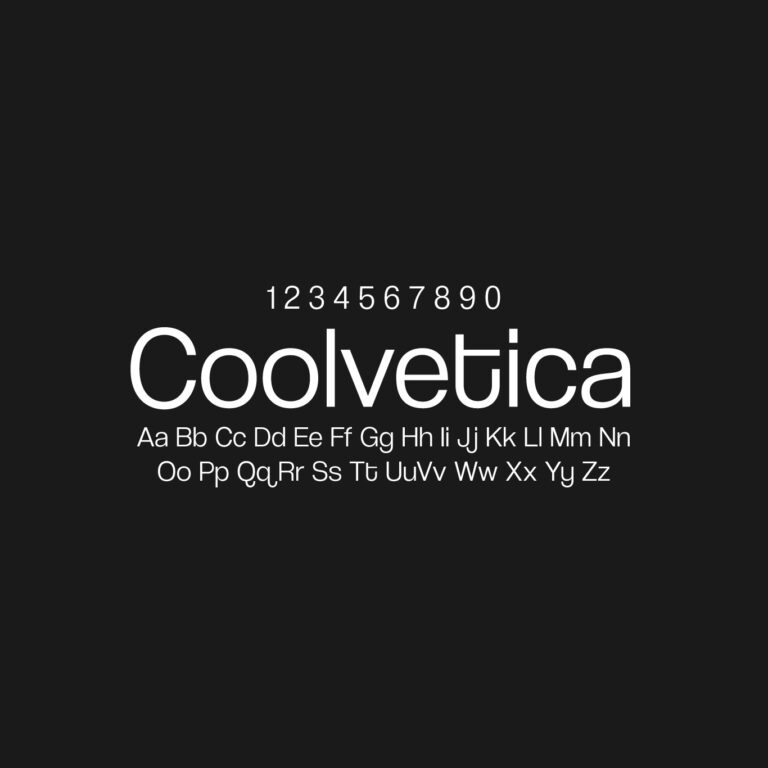
Coolvetica is a display sans-serif typeface with a strong retro-modern character. Its design is inspired by the tight, bold, 1970s-style lettering often seen in vintage advertising, television graphics, and classic logo design. The font has a clean geometric structure, but its curves and proportions give it a softer and more nostalgic personality than many neutral sans-serif families.
Coolvetica works best as a headline and display font rather than a long body text font. It is a strong choice when a project needs a typeface that feels bold, stylish, retro, and familiar without looking too formal or corporate.
Designer: Ray Larabie
Foundry: Typodermic Fonts
Fonts similar to Coolvetica include Helvetica, Helvetica Neue, Arial Rounded, Aktiv Grotesk, Neue Haas Grotesk, Unica77, Acumin, Grotesk-style sans-serif fonts, and other retro-inspired display sans typefaces. These alternatives can be useful for branding, posters, editorial titles, packaging, and clean logo-style typography.